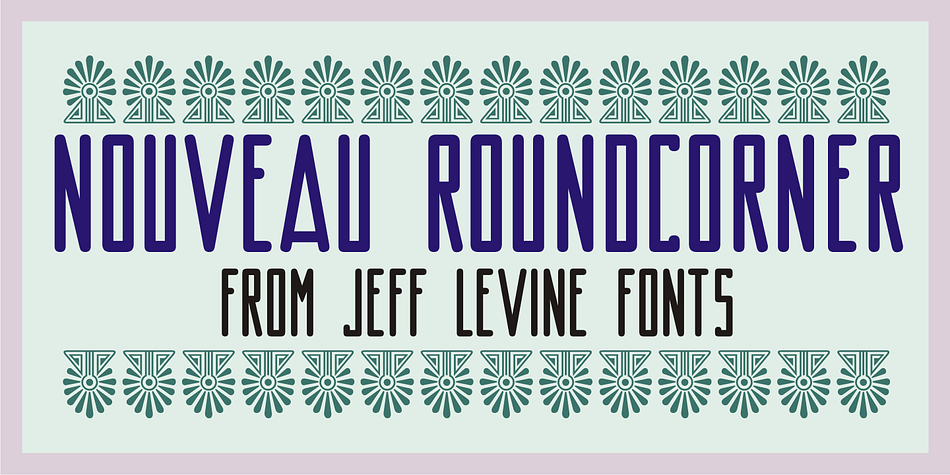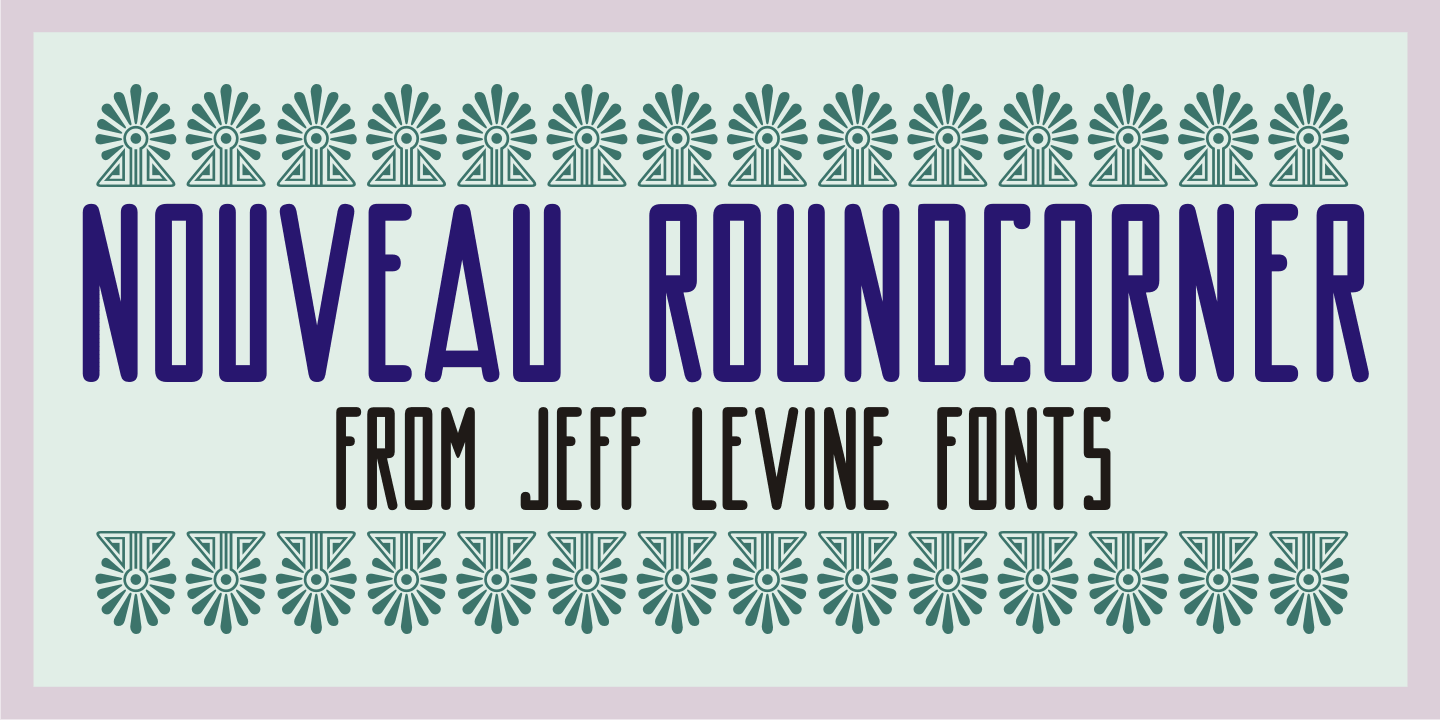
Nouveau Roundcorner JNL is a display sans and art deco font published by Jeff Levine Fonts.
1920s sheet music for the song “You Can’t Get Away From It” provided the hand lettered title which acted as the basis for Nouveau Roundcorner JNL.
A square letter form with rounded terminals, this condensed face is perfect for titling, yet has a bit of an informal, casual charm to it.